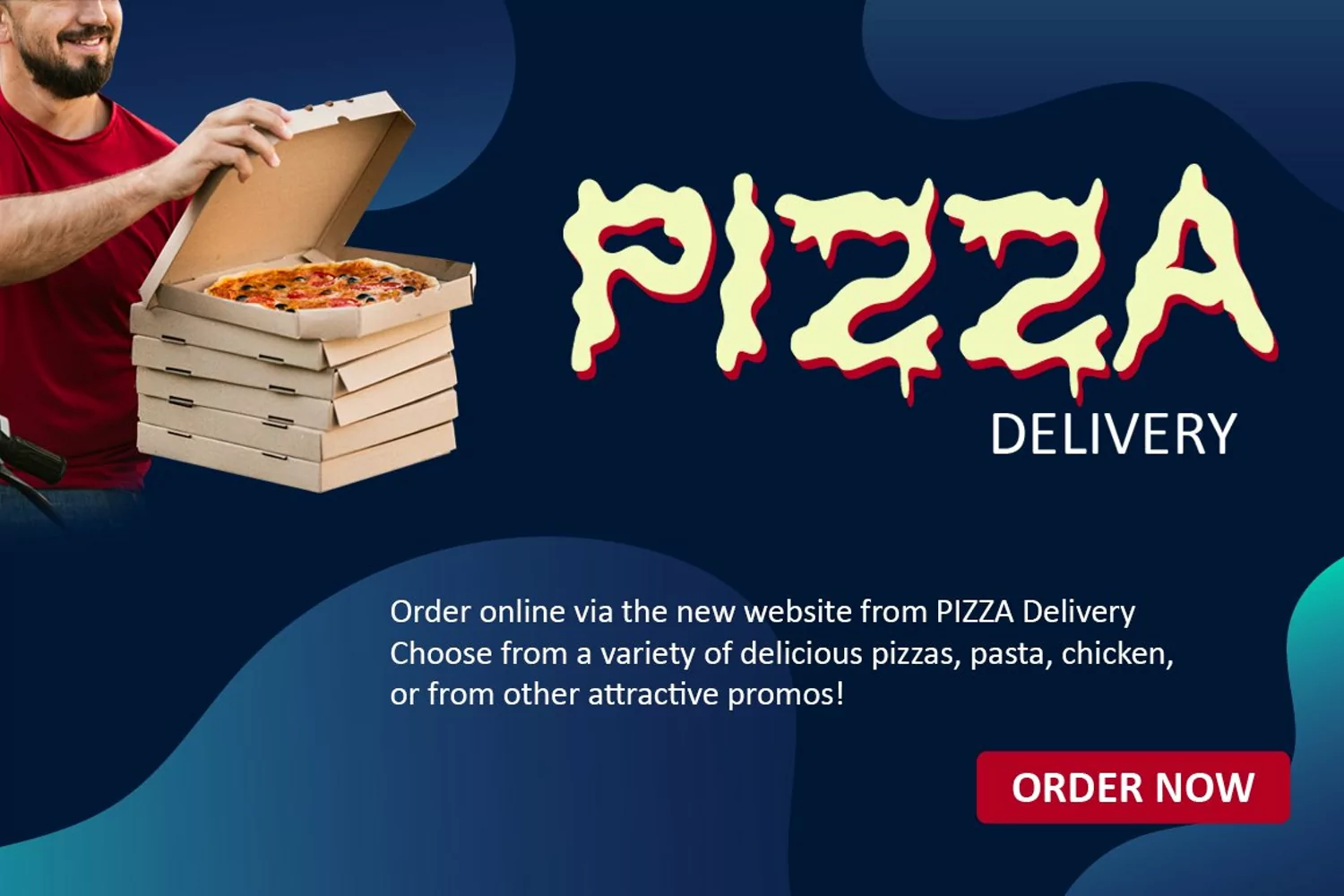
Slabs is a slab serif font with bold and abstract style. Made it with a handwritten.
Use it for any design project such as a poster, clothing, craft, logo type or merchandise.
- Numerals & Punctuation
- Discretionary Ligatures